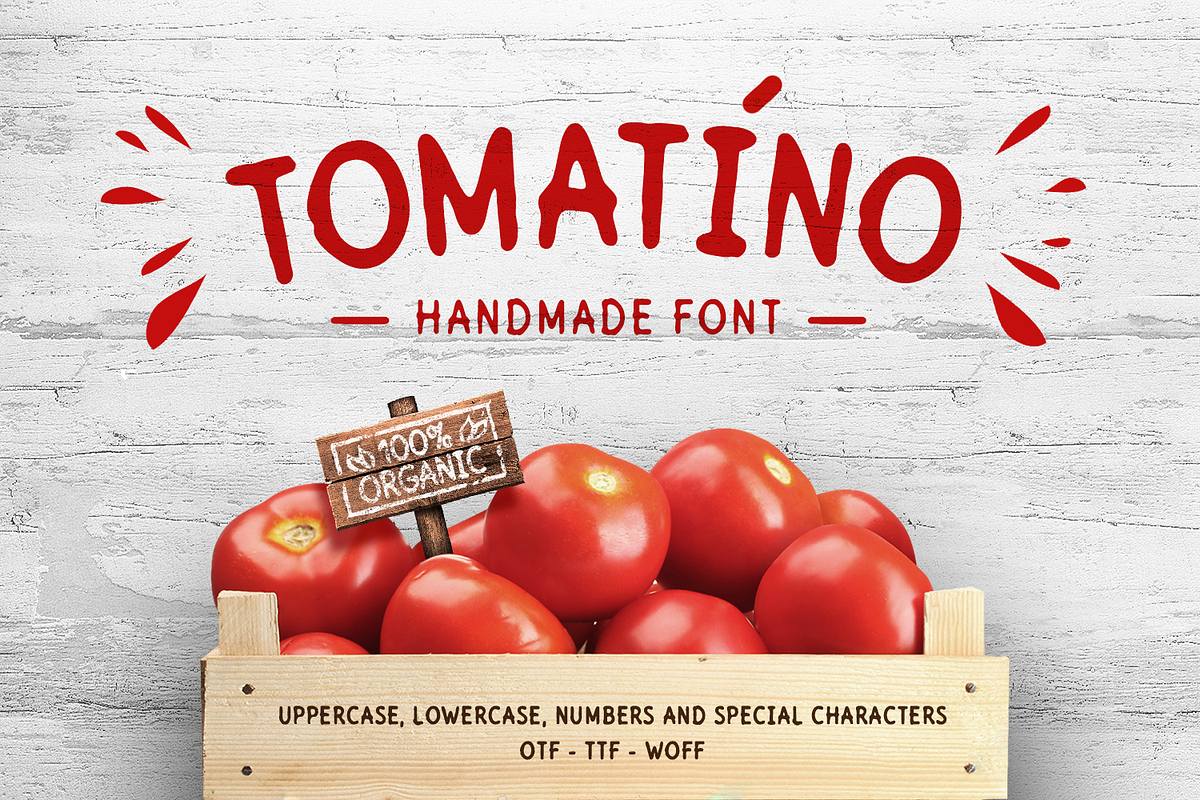
Tomatino. Handmade Sans Serif Font Free Download
Tomatino. Handmade Sans Serif Font Free Download is a fun and friendly typeface with a hand-drawn charm that’s perfect for casual and creative design projects. With its slightly imperfect lines and natural flow, Tomatino brings warmth and personality to branding, packaging, social media posts, children’s books, and handmade product labels. It combines the simplicity of a sans serif with the authenticity of handcrafted lettering.
Using the Tomatino. Handmade Sans Serif Font Free Download adds a welcoming and approachable feel to your work. Whether you're designing a logo for a small business, creating playful headlines, or crafting cozy product tags, this font delivers a relaxed, down-to-earth vibe that's full of character.